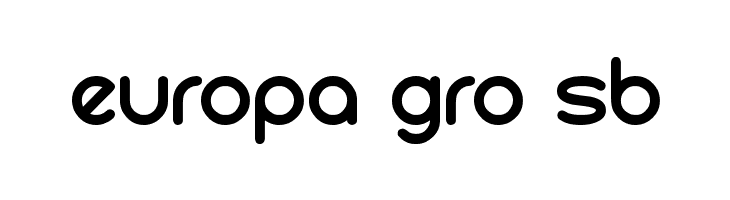
( Fonts by Dieter Schumacher )
A bold, rounded geometric font with a modern and playful style.
( Fonts by Dieter Schumacher )
A thin, italicized font with a modern, geometric style.
A playful, bold font with bubble-like, three-dimensional letters.
The image contains Christmas-themed graphics, not a font.
A collection of retro space-themed icons and illustrations.
A modern, geometric font with thin, uniform lines and a minimalist style.
A playful dingbat font with romantic and Valentine’s Day illustrations.
Romantic dingbat font with Valentine’s Day icons.
( Paul Lloyd Fonts )
A modern, geometric font with tall, narrow characters and clean lines.
Modern, geometric Gurmukhi script with monolinear strokes.
A modern, geometric font with uniform stroke width and rounded edges.
A bold, textured font with a distressed, hand-drawn appearance.
The image contains box-like symbols, not a valid font.
( Fonts by www.fontdiner.com )
A rugged, distressed font with a rustic, hand-crafted feel.
( Fonts by Espen Morten Kvalheim - www.unbornchikken.com )
A modern, geometric font with parallel line motifs and consistent stroke width.
( Fonts by www.kuzumi.net - Dust@fonts )
A minimalist grid of vertical lines with a modern, structured appearance.